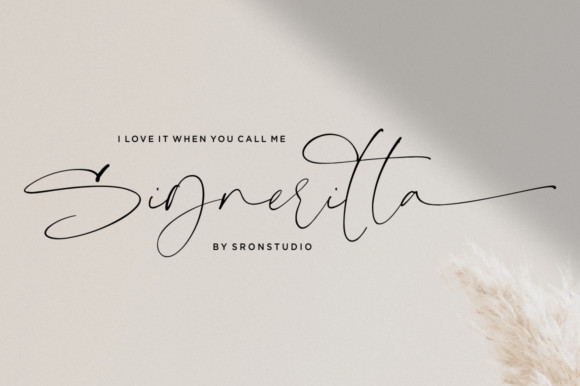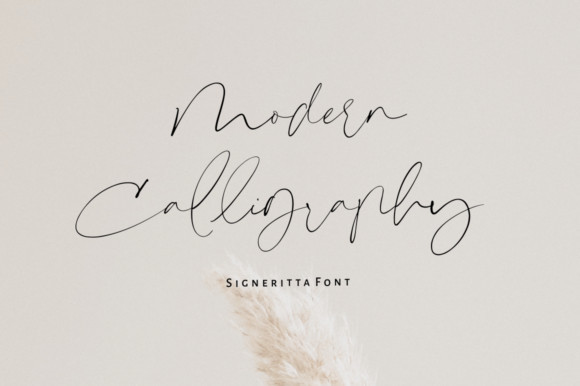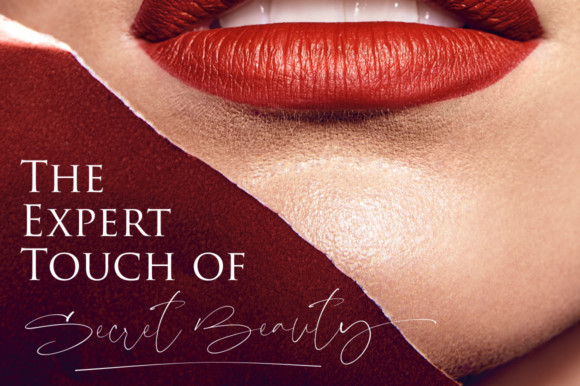
Signeritta Font
Signeritta is a delicate and unique handwritten font. Modern and stylish, this font makes the perfect font for each of your adored creations.